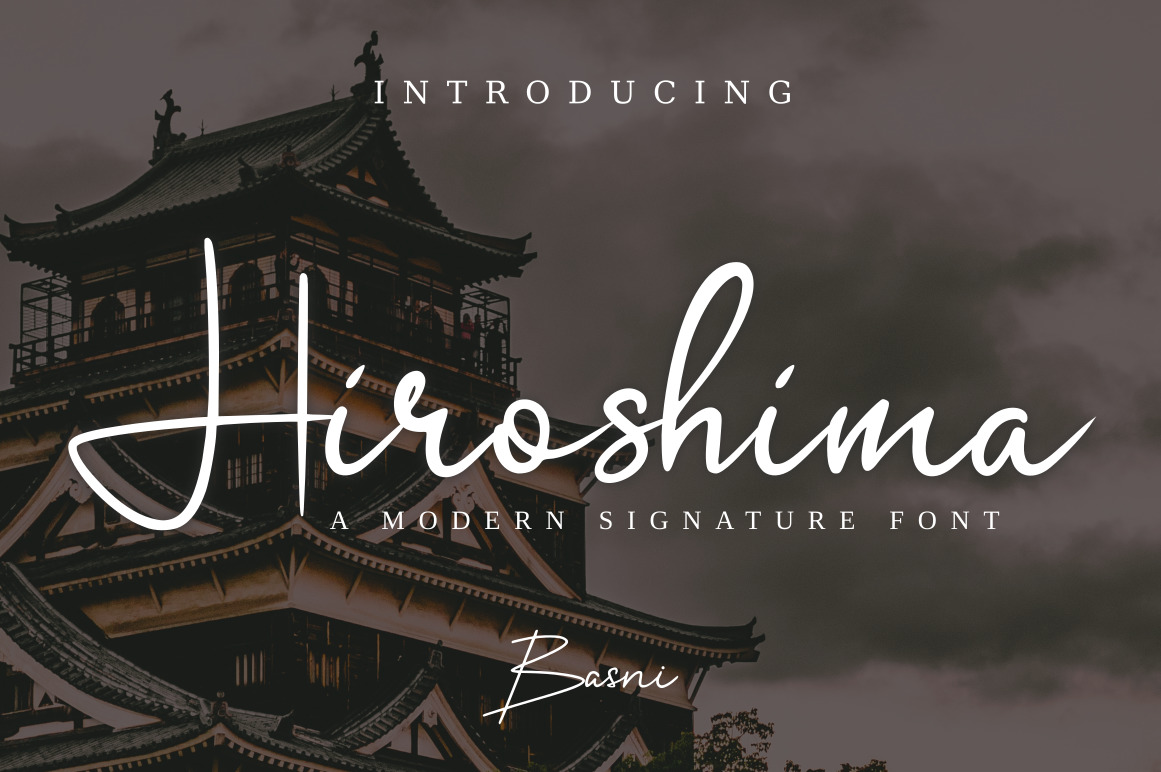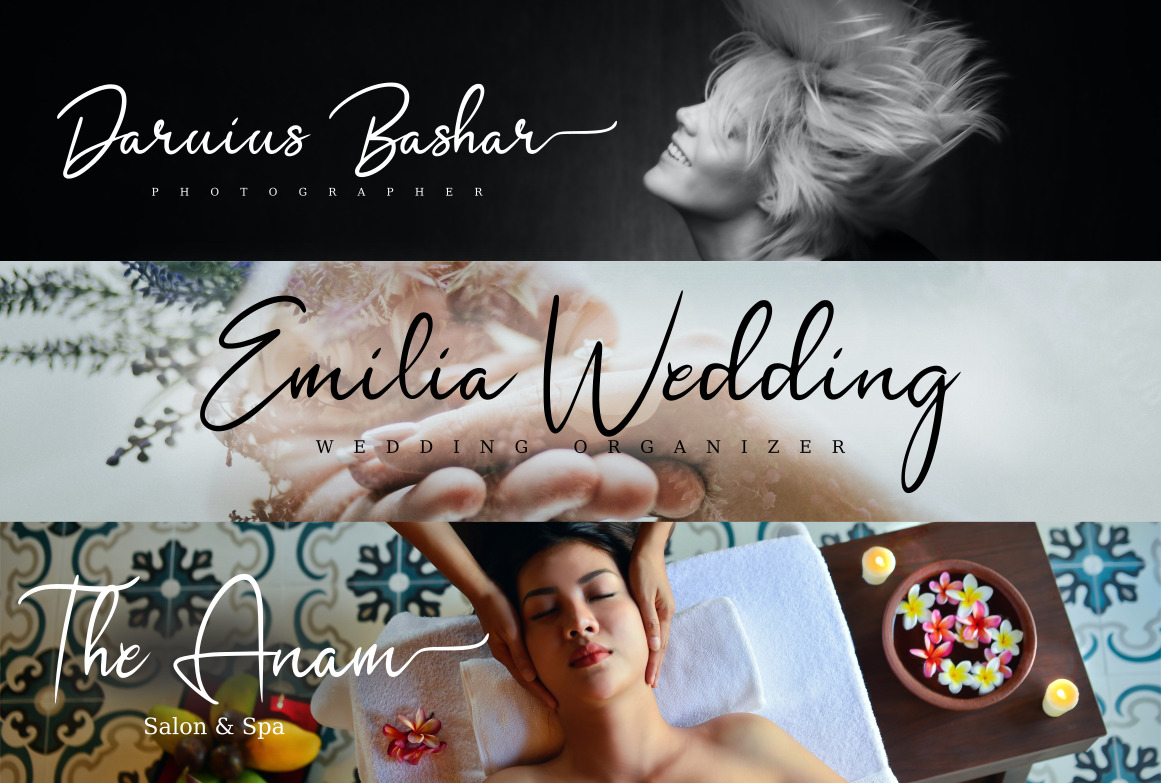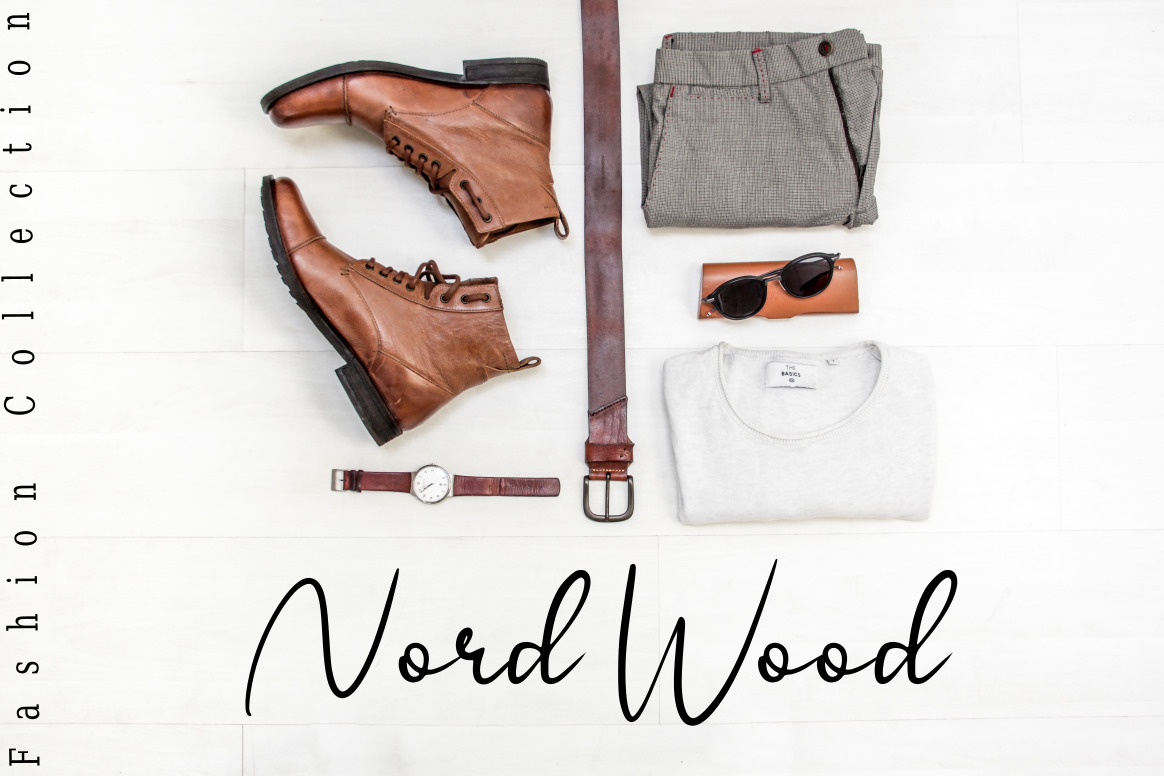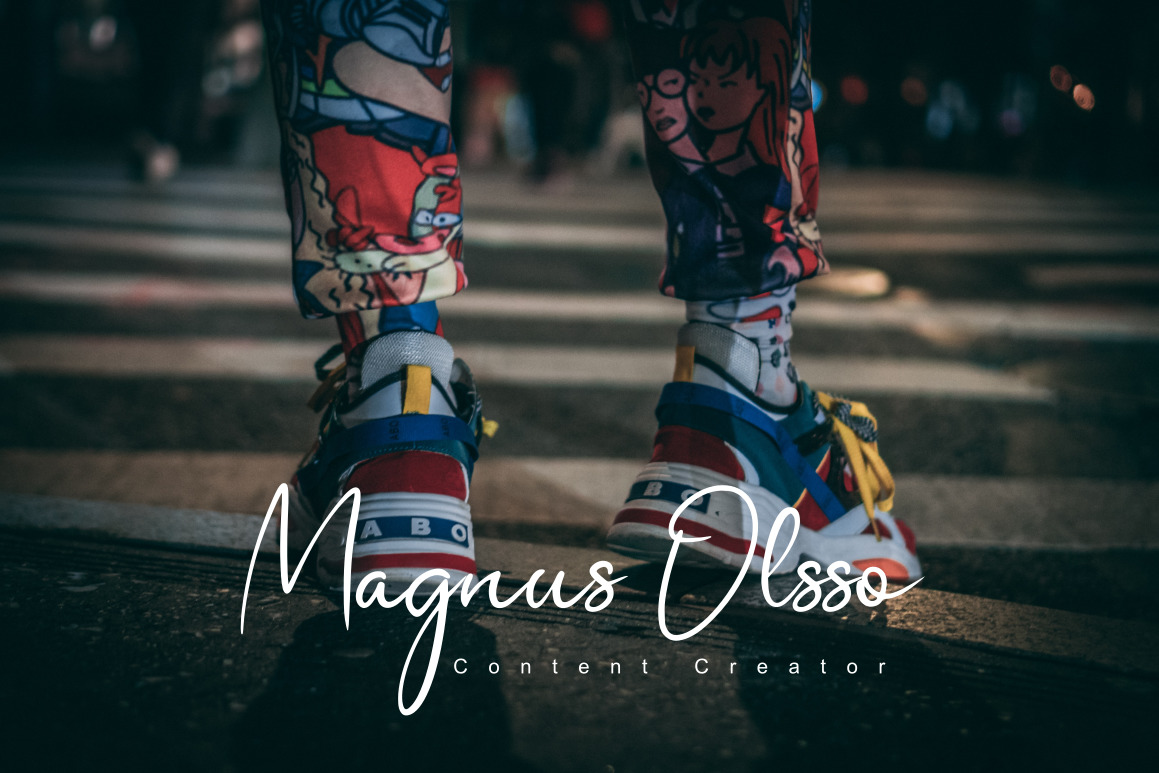
Hiroshima - Signature Font
Hiroshima font is modern Signature font. Hiroshima is perfect for branding, signature, watermark, business card, clothing, magazine, web, and any other design projects. Hiroshima looks naturally.